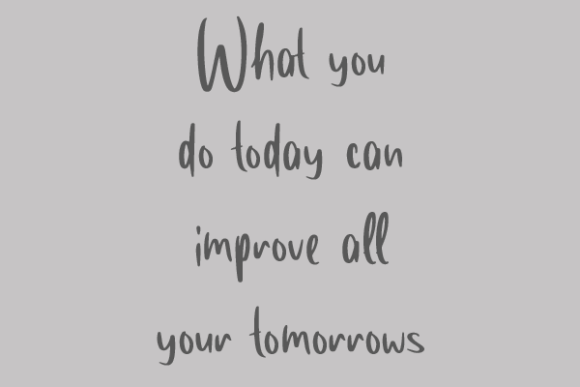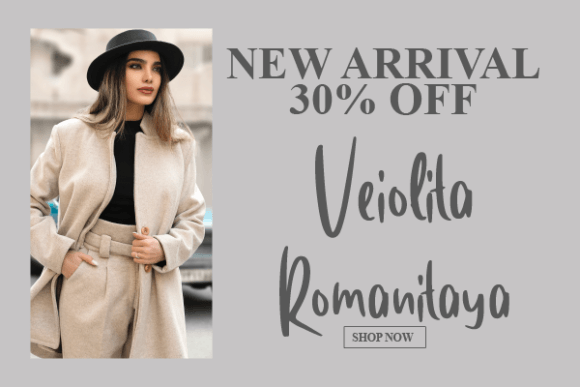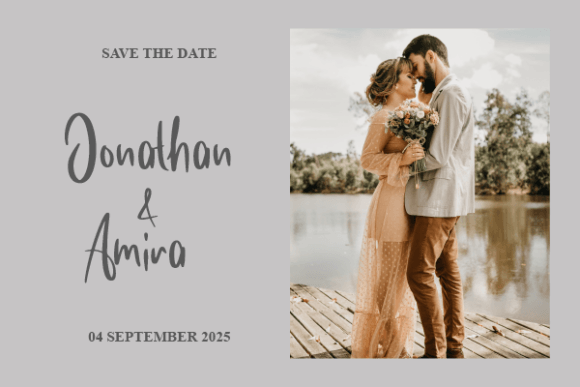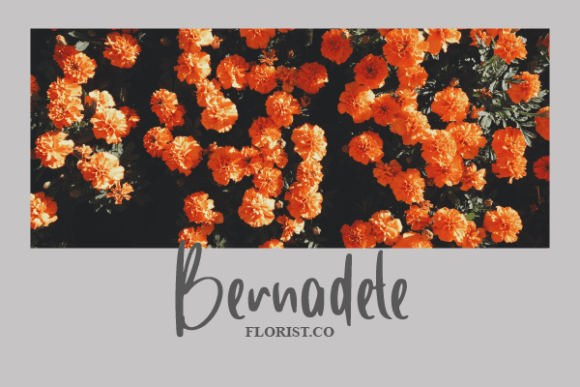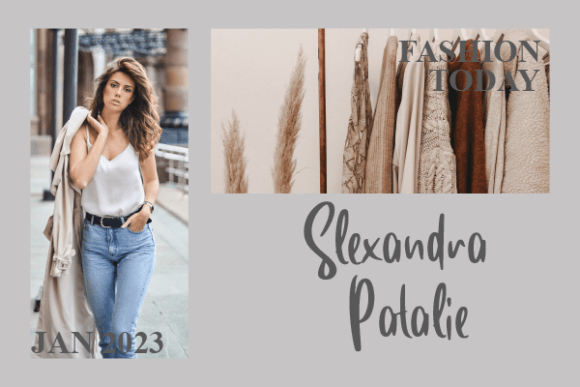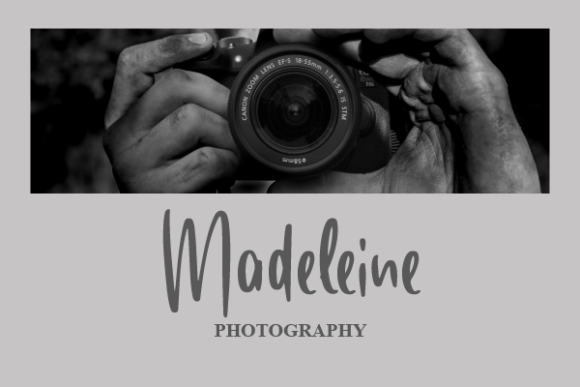
Introduction to Dempster Tracey Font
Have you ever stared at a blank page, waiting for inspiration to strike? That’s exactly what happened to us when we first laid eyes on the Dempster Tracey Font. Its elegant script and unique flow immediately captured our attention, and we knew we had to share it with the world.
As designers, we’re always on the lookout for high-quality design resources that can elevate our creative projects. That’s why we’re excited to introduce you to Dempster Tracey Font, a modern script calligraphy typeface that’s perfect for logo design, branding, covers, posters, and more. With its beautiful, flowing lines and transparent background, this font is sure to add a touch of sophistication to any project.
Key Features of Dempster Tracey Font
- High-quality design resource suitable for creative projects, offering a unique and elegant aesthetic.
- Includes a range of sizes and resolutions, from 72 dpi to 300 dpi, catering to different design needs.
- Designed with precision and attention to detail, making it an ideal choice for designers seeking a high-quality font.
Honest Review: Dempster Tracey Font
As a designer, I’m always on the lookout for high-quality design resources to elevate my creative projects. The Dempster Tracey Font is one such resource that caught my attention, and I’m excited to share my honest review with you.
- Unique and elegant design aesthetic: The Dempster Tracey Font has a distinctive, vintage vibe that’s perfect for adding a touch of sophistication to your designs.
- High-quality fonts: The font is available in a range of weights and styles, ensuring that you can find the perfect match for your creative project.
- Transparency: While the font itself is beautiful, the transparent background can be a bit tricky to work with, especially if you’re not familiar with editing images.
Overall, I’m impressed with the Dempster Tracey Font. Its unique design aesthetic and high-quality fonts make it an excellent choice for designers looking to elevate their creative projects. While there are some limitations to consider, I believe the benefits far outweigh the drawbacks.
Tips for Getting the Most Out of Dempster Tracey Font
Use Dempster Tracey Font in conjunction with a transparent background to create visually appealing design elements. Experiment with different font sizes and styles to add depth and interest to your design.
Dempster Tracey Font is ideal for use in logos, typography, and design assets where a high-quality, transparent font is required. Its versatility makes it a valuable resource for designers working on creative projects.
Alternatives to Dempster Tracey Font